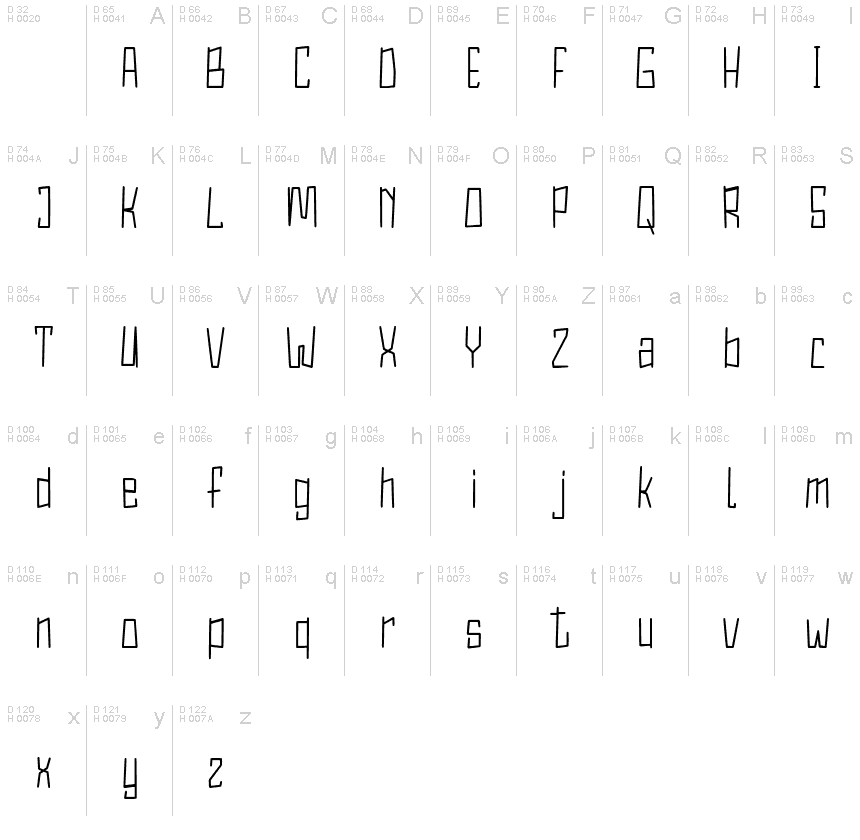
Cybertroops Free Regular
Cybertroops, the brainchild of Maulana Creative, is a display font that combines comic style with a semi-light weight and extra-condensed width. Its quirky and playful appearance makes it perfect for designs that require a fun touch. Use it to create posters, brochures, websites, or any project that needs an eye-catching headline. The unique characteristics of Cybertroops give your design a distinctive look and feel that will make it stand out from the rest. Let your creativity run wild with Cybertroops – the font that brings joy to any design.